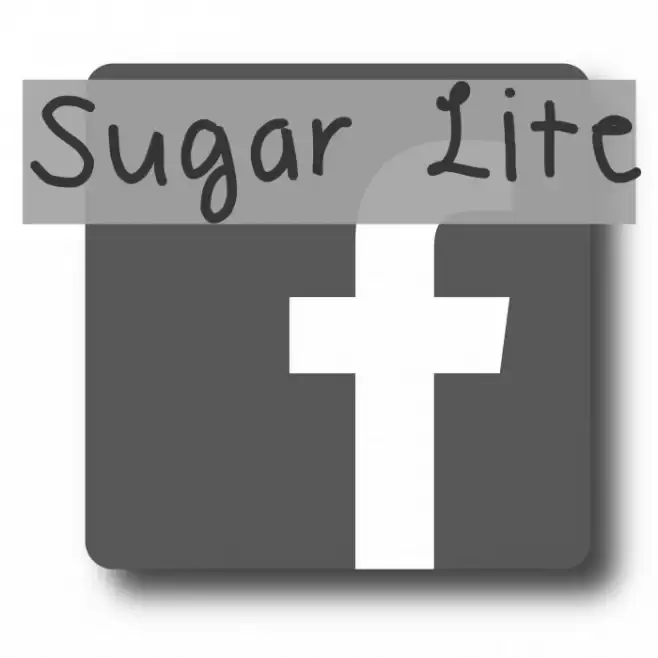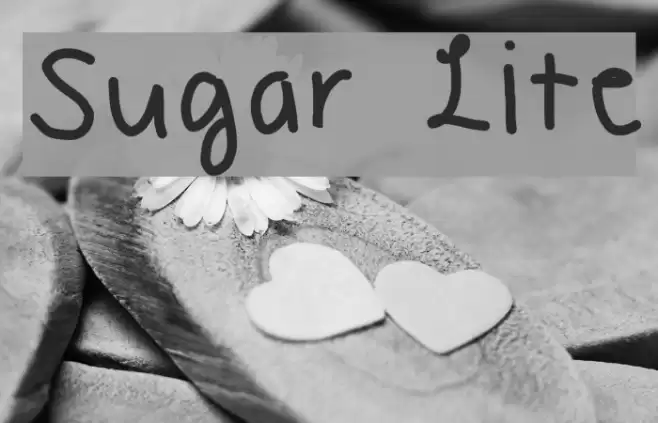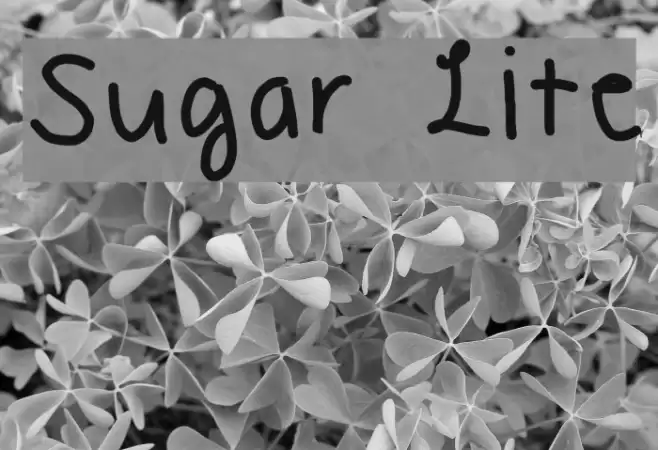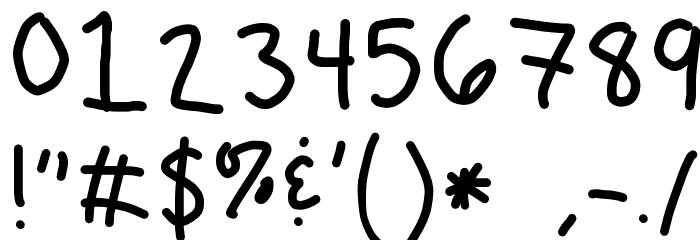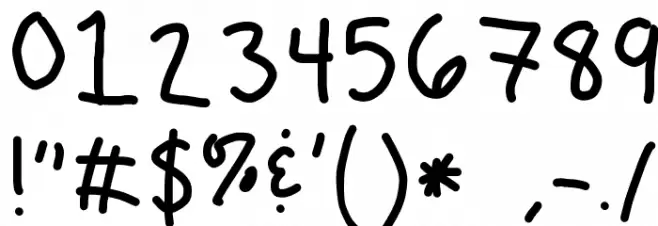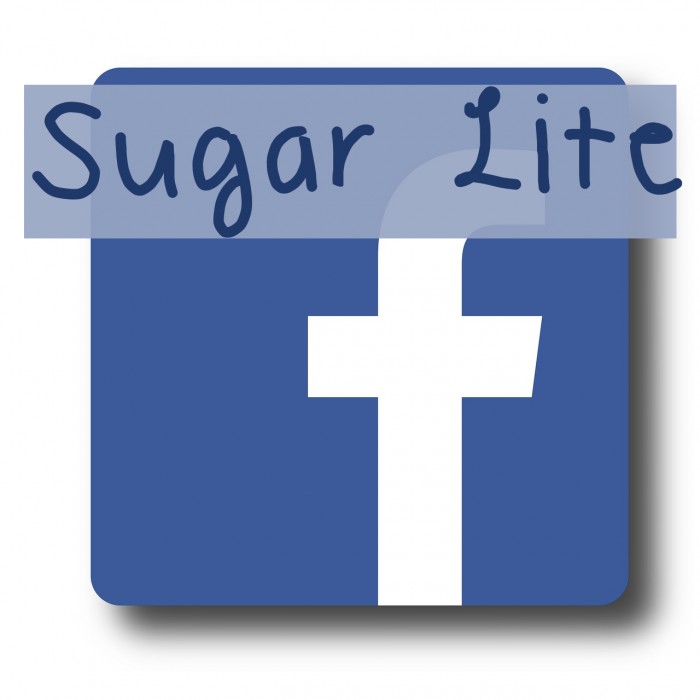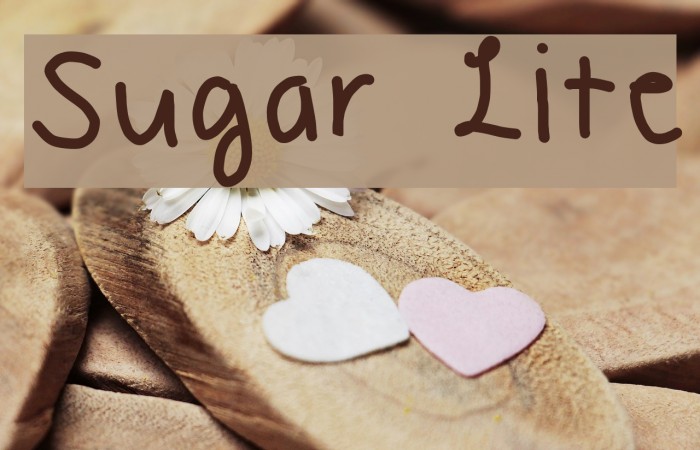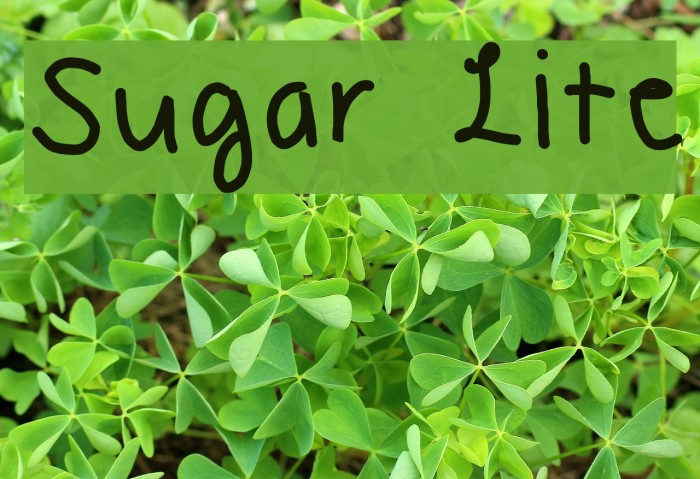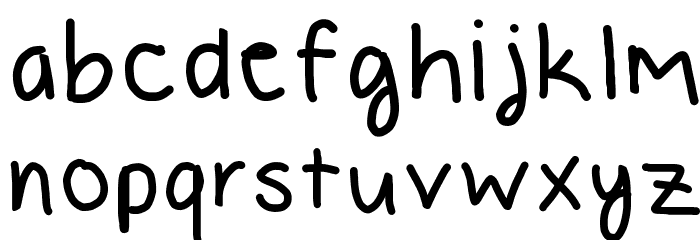
Sugar Lite Font
Sugar Lite Description
This font exhibits a playful and casual handwritten style, characterized by its rounded and slightly irregular letterforms. The strokes are consistent in weight, giving it a uniform appearance, yet the slight variations in each character add a touch of personality and charm. The uppercase and lowercase letters maintain a cohesive look, with smooth curves and a friendly demeanor. The numerals and special characters follow the same design principles, ensuring a harmonious overall appearance. This font is ideal for projects that require a personal and approachable touch, such as invitations, greeting cards, or informal branding.
A playful, casual handwritten font with rounded, consistent strokes from Handwritten fonts.
- Proposed Projects: Ideal for invitations, greeting cards, informal branding, and playful designs.
- Overall Style: Casual
- Use Case: Headlines, Informal text, Invitations